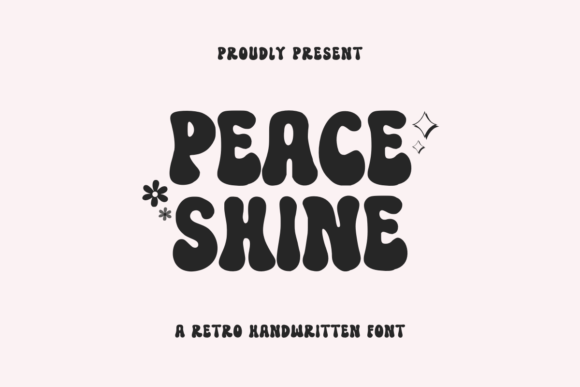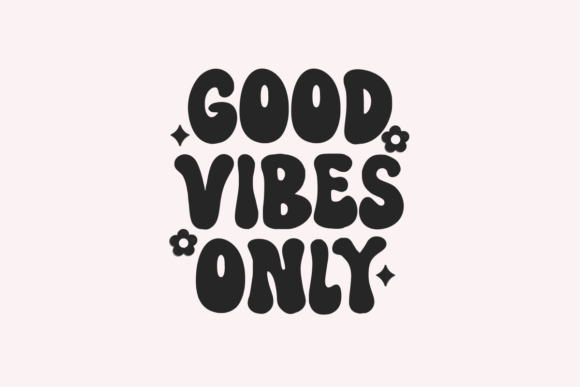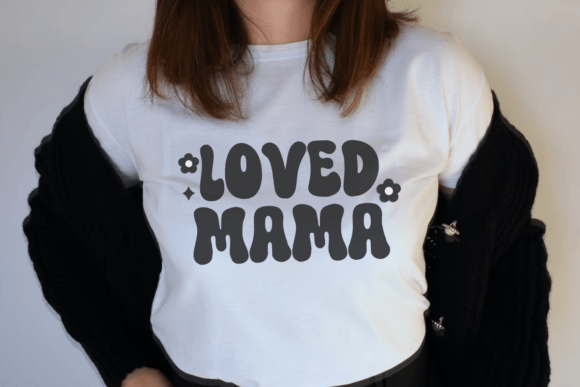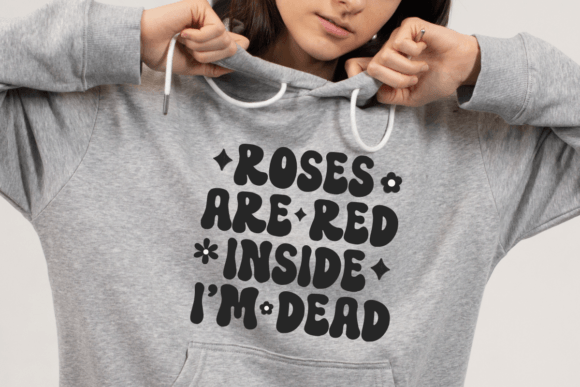
Peace Shine Font: A Fun Retro Typography for Groovy Designs
About the Peace Shine Font
Welcome to the world of Peace Shine Font, a typeface that will inspire your next great project. Peace Shine is a cool retro groovy font. Great for quotes, t-shirts, tote bags, greeting cards, mugs and any design that needs a fun look.
Peace Shine’s retro-inspired design excels in headlines, short slogans, and display applications like posters and packaging where its playful energy is most effective. It’s also a strong choice for branding projects targeting a younger demographic or those with a vintage aesthetic. However, its condensed letterforms and decorative elements make it less suitable for body text or UI elements requiring high readability.
For optimal visual balance, consider pairing Peace Shine with a clean sans-serif like Open Sans or Lato for body copy, providing a strong contrast. Alternatively, a classic serif such as Merriweather can add a touch of sophistication, complementing its retro vibe without overwhelming it. Avoid pairing it with other highly decorative or script fonts which could create visual clutter.
Its core personality is undeniably playful and bold, yet retains a friendly approachability, making it ideal for brands focused on fun, creativity, and a sense of nostalgia.
Peace Shine Font Usage Examples
Peace Shine Font Example